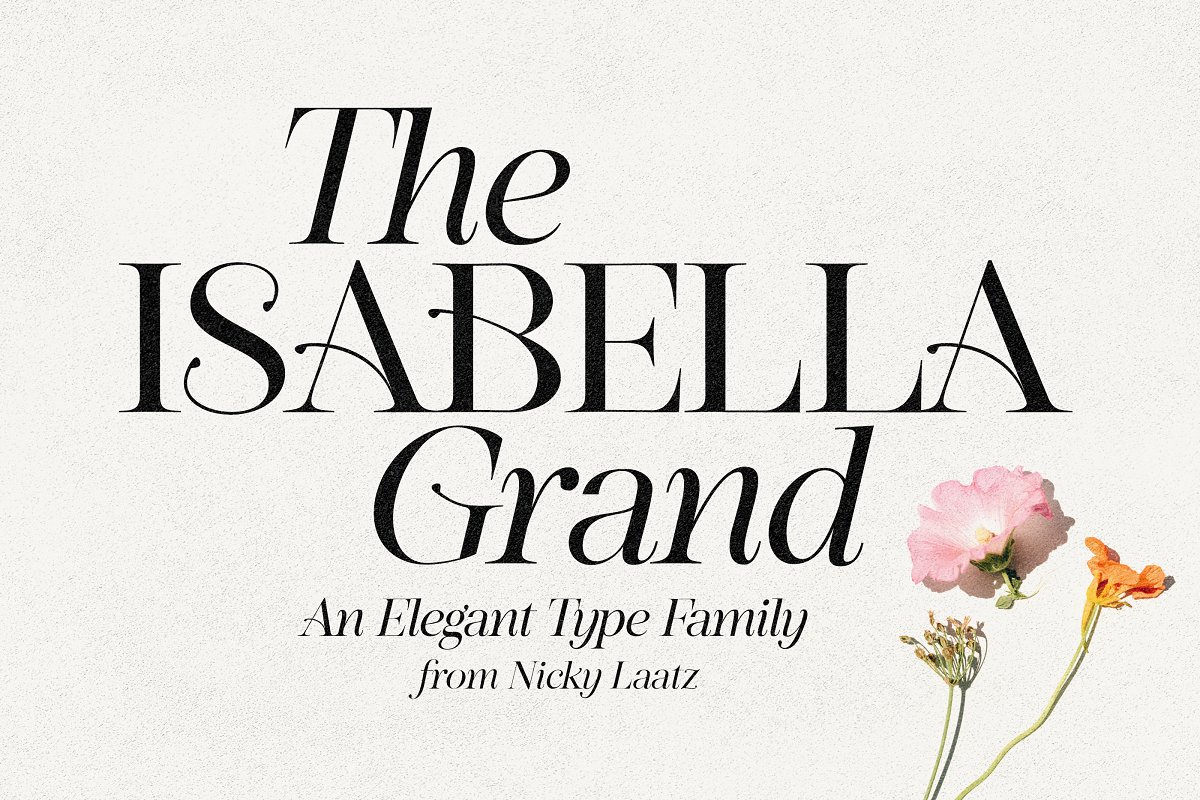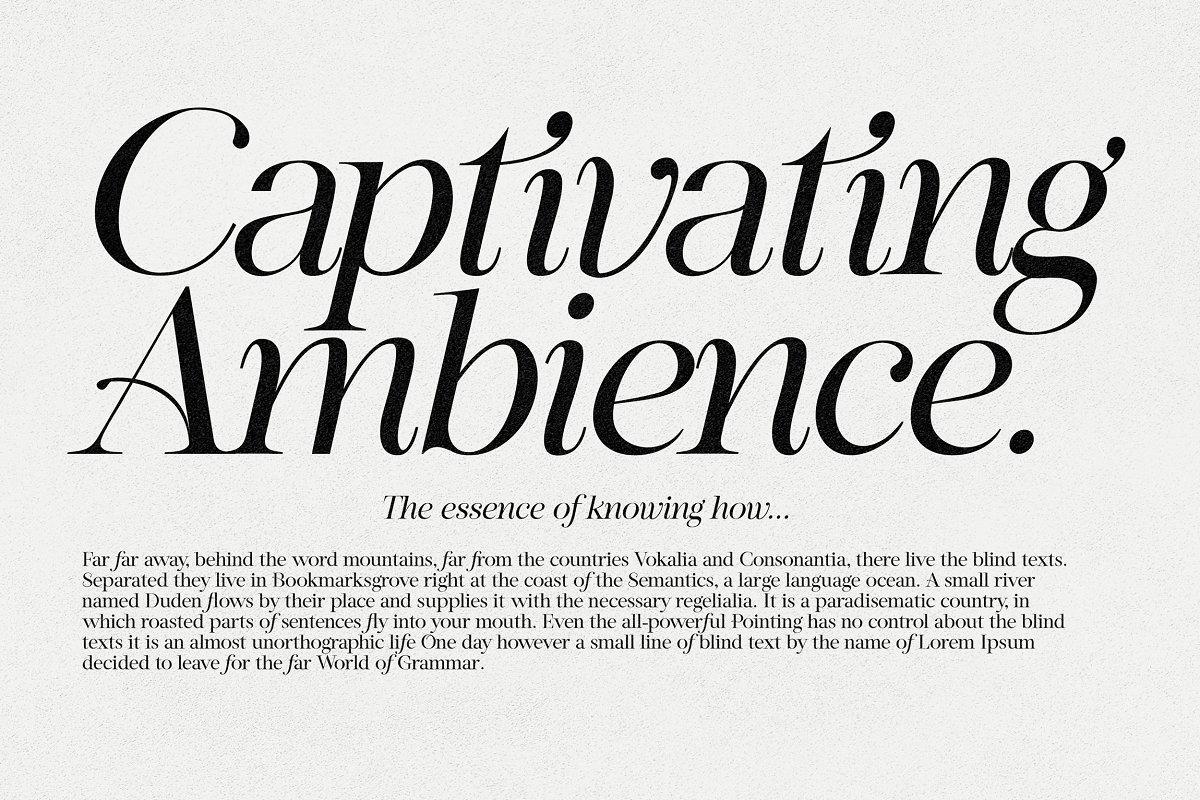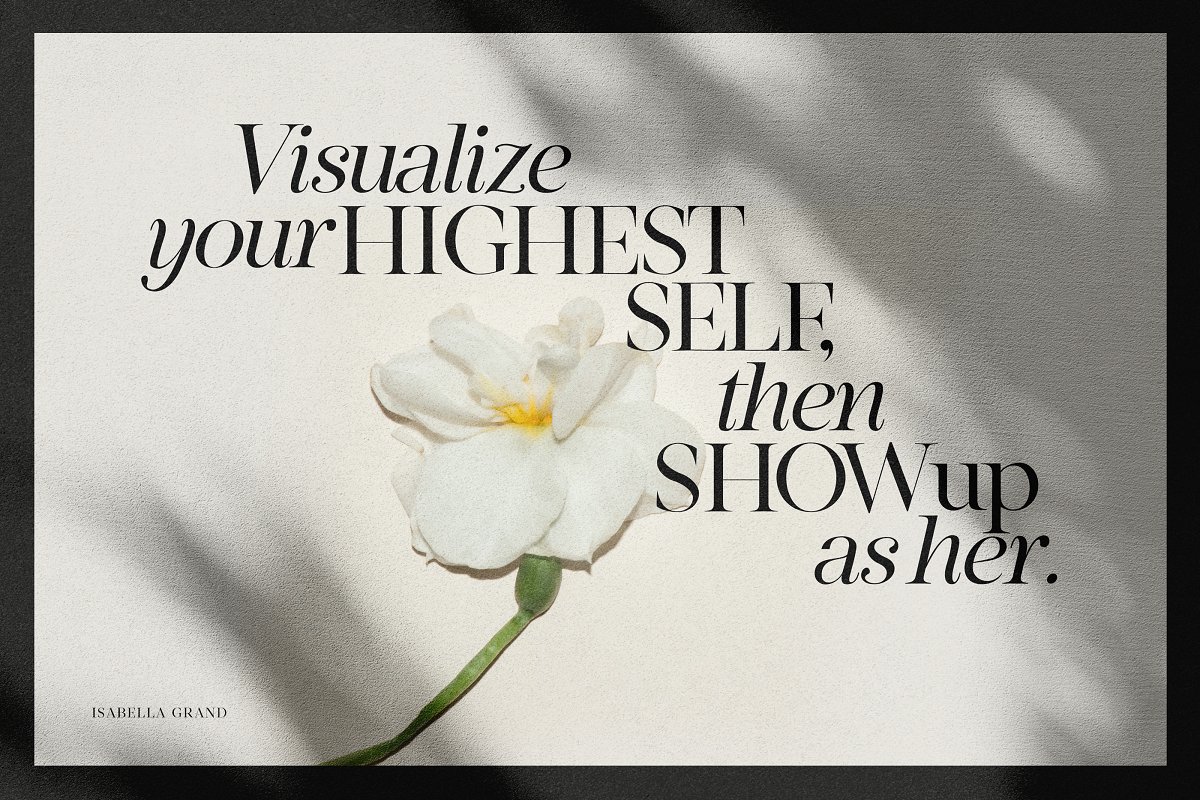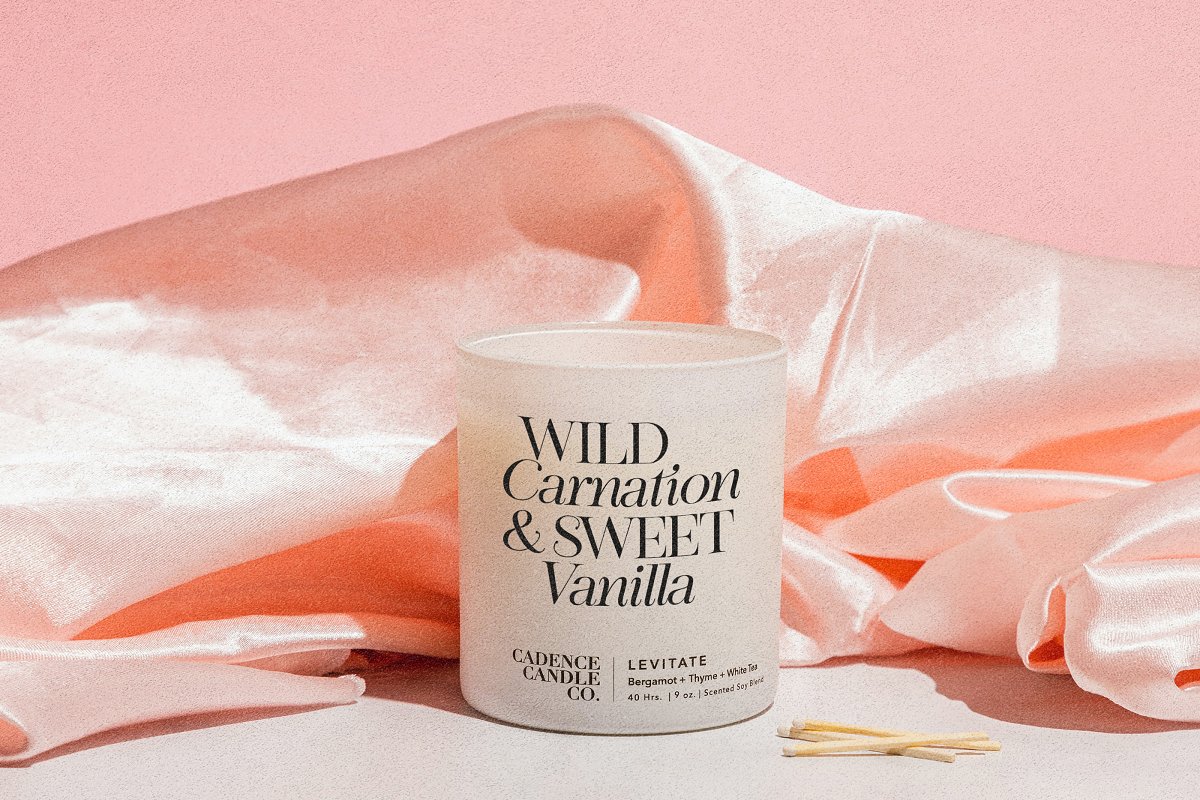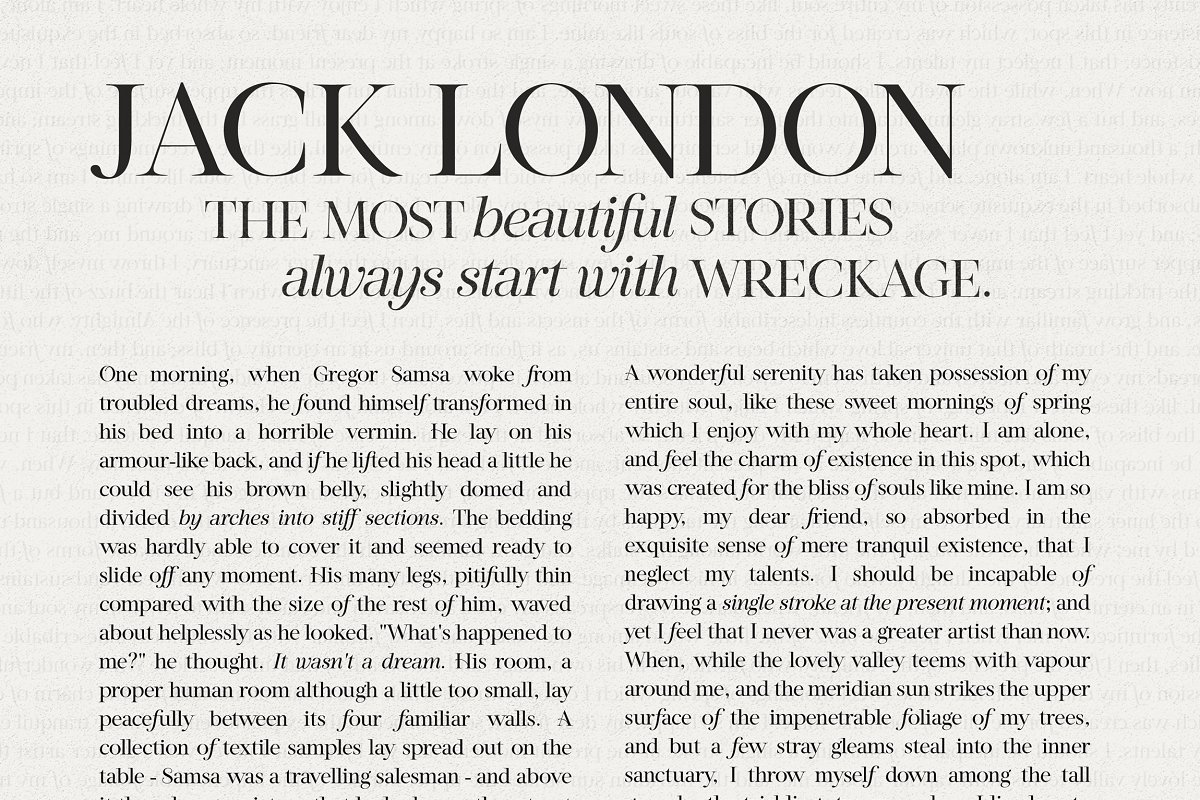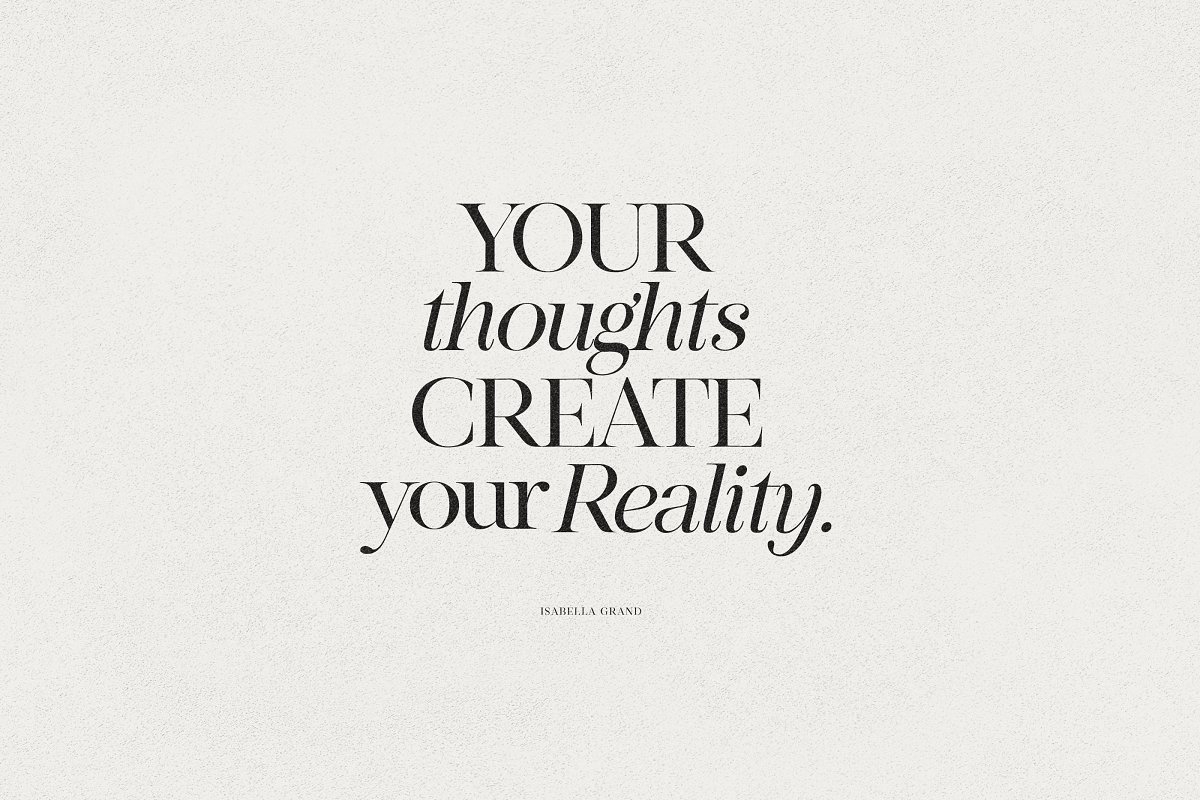
About the Isabella Grand Typeface
Style and Grace personified – say hello to Isabella Grand, This typeface has two main styles, Regular and Italic, that are designed to work elegantly in unison and apart, The serif has a boldy different ‘ f’, which sets it apart from regular serifs, , , , , as Isabella Grand likes to stand out from the rest, A regular ‘f’ is included in its alternates, and a extra font style with a regular f is included for projects that require a more staid elegance
The Italic style is dreamy, sultry and light-footed – a perfect partner for the more serious serif, Less Fancy Uppercase : These are available via your OpenType Alternates as options, You need Opentype capable software to access these, Double letter ligatures : Such as the fancy ti in the italic version, use your Opentype Ligatures to access these